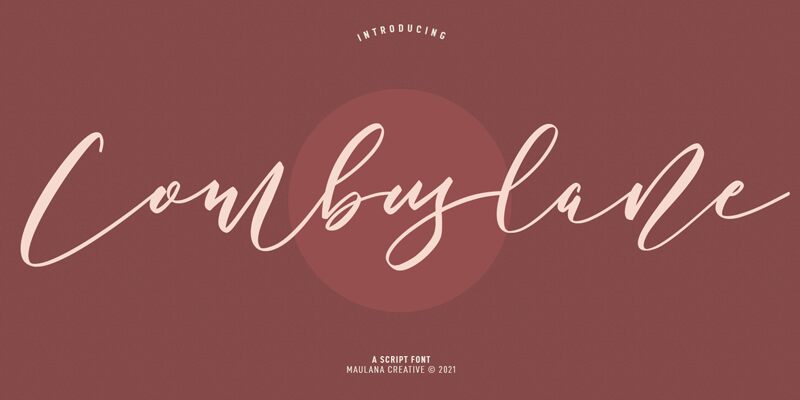
Combuslane
Introducing Combuslane, a stunning handwritten font designed by Maulana Creative. Its light weight makes it perfect for crafting beautiful logos, posters, and other creative projects. Bring your words to life with Combuslane!